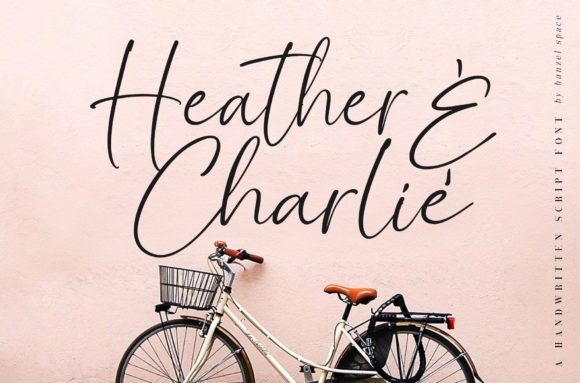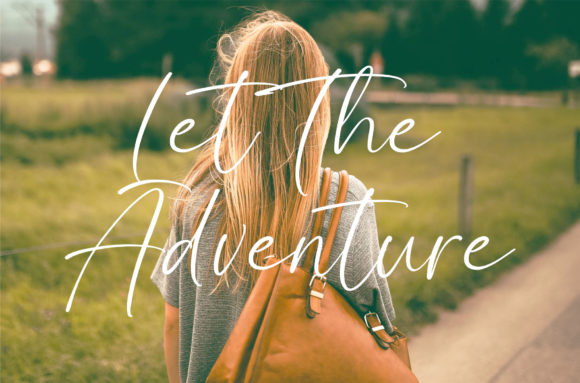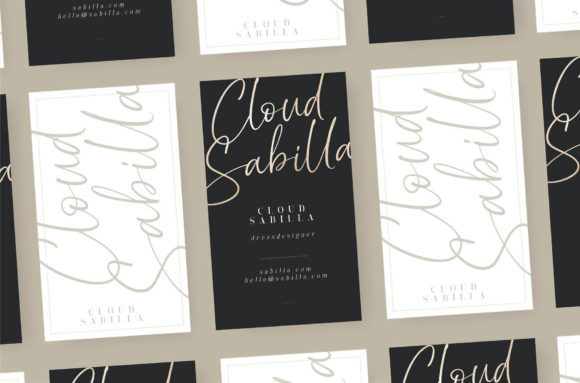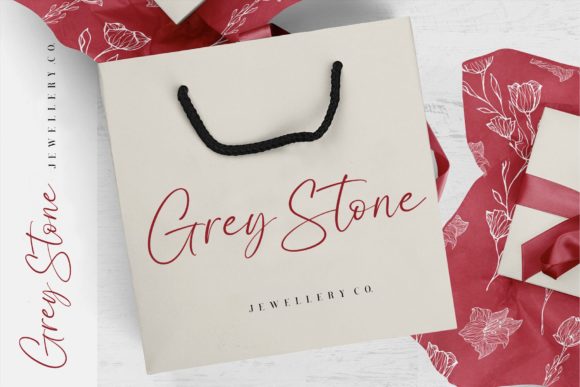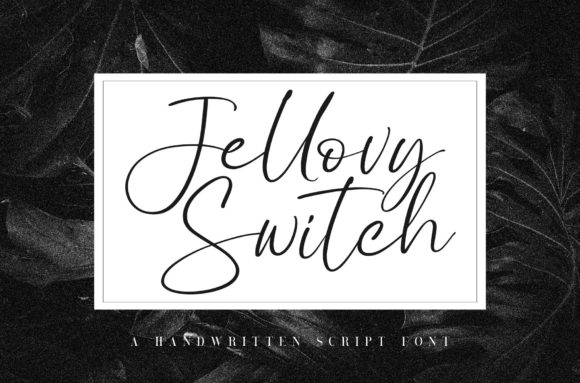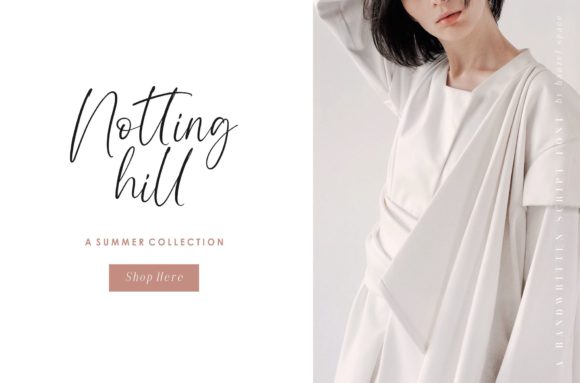
Introduction to Jellovy Switch Font
Jellovy Switch is a stylish and delicate handwritten font.
It has a clean, thin and smooth vibe and it will be a hit for any design that you want to add it to It is suitable for any branding, product packaging, invitation, quote, t-shirt, label, poster, logo that you wish to develop.